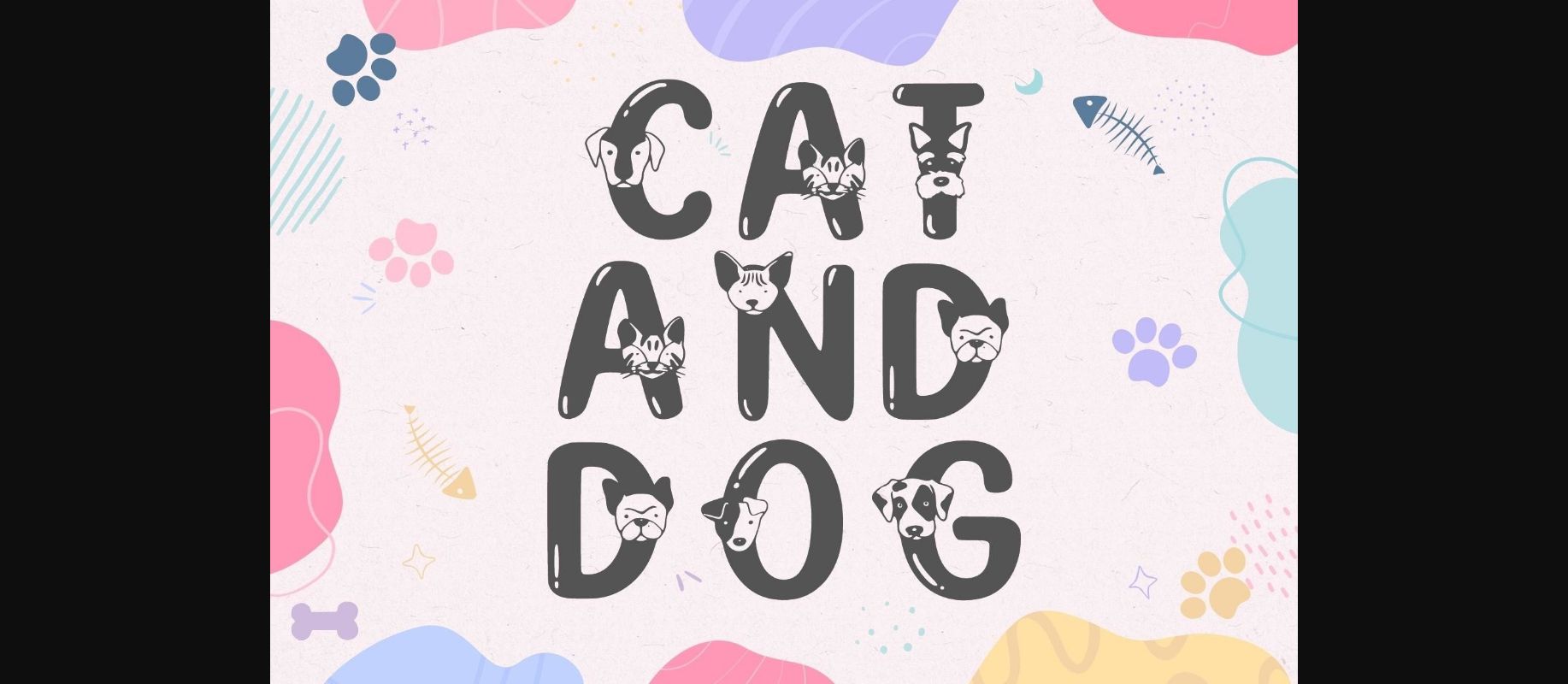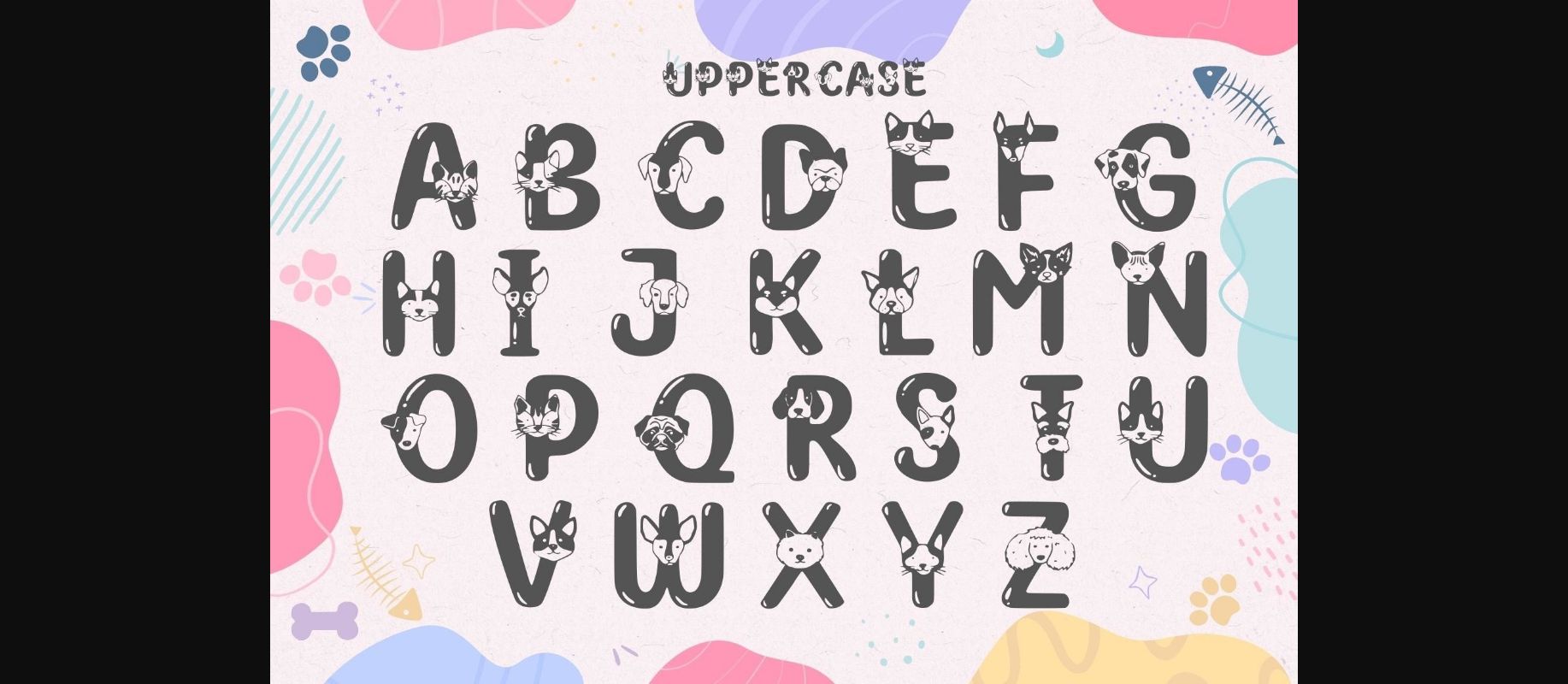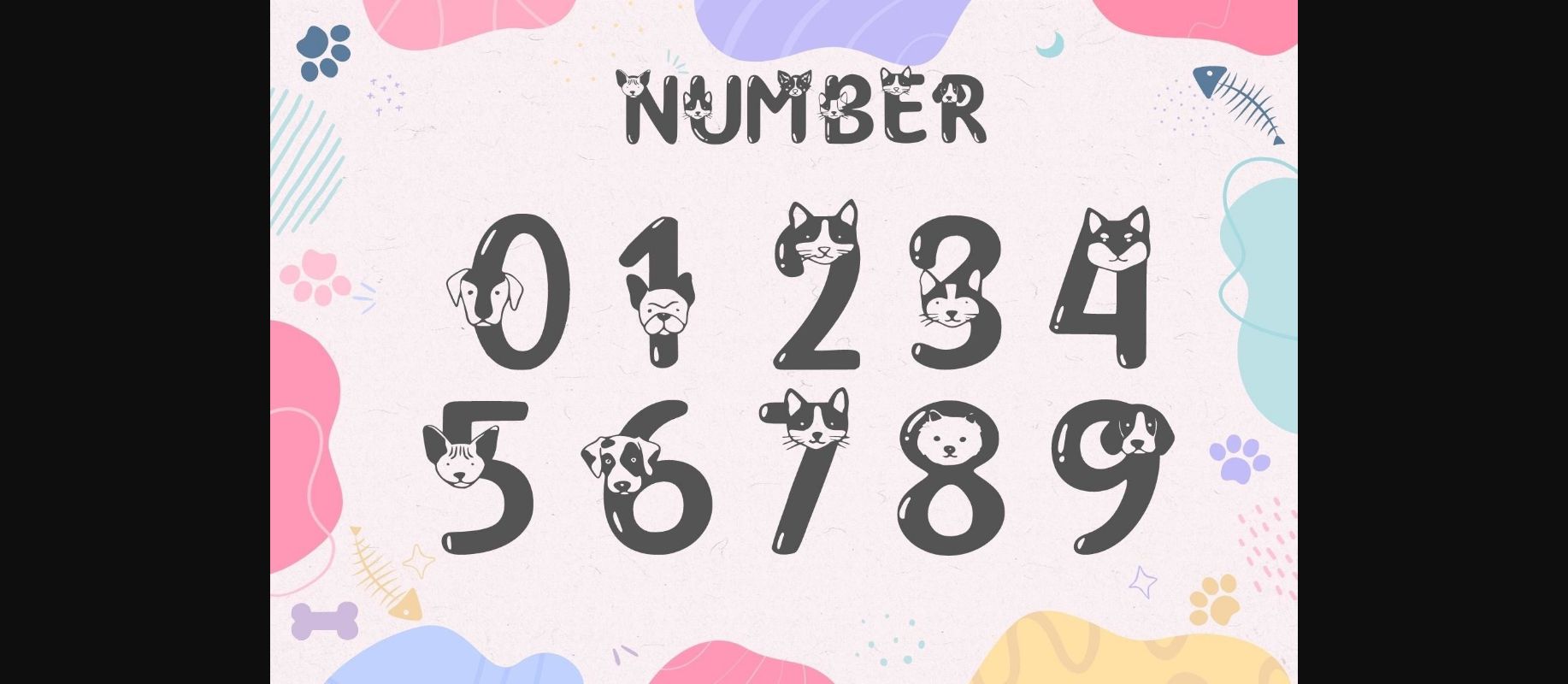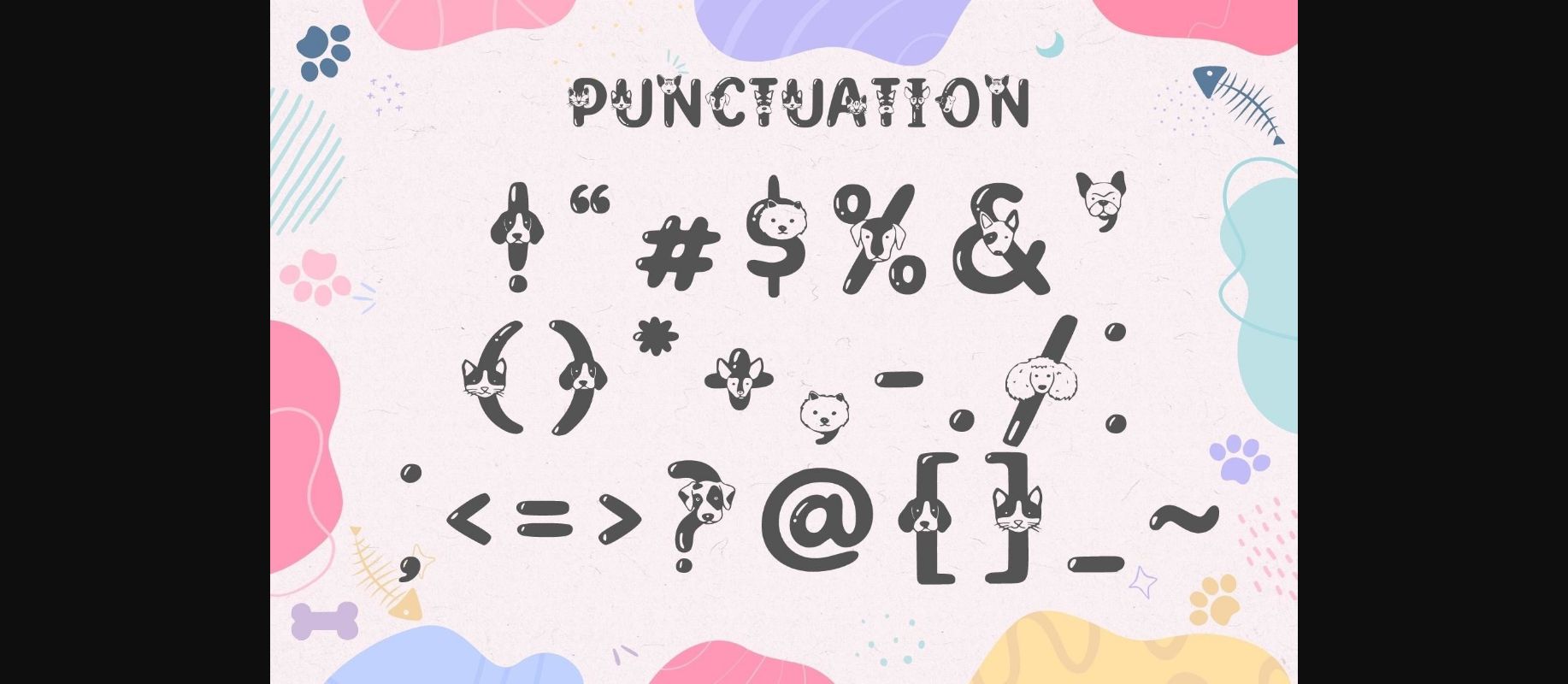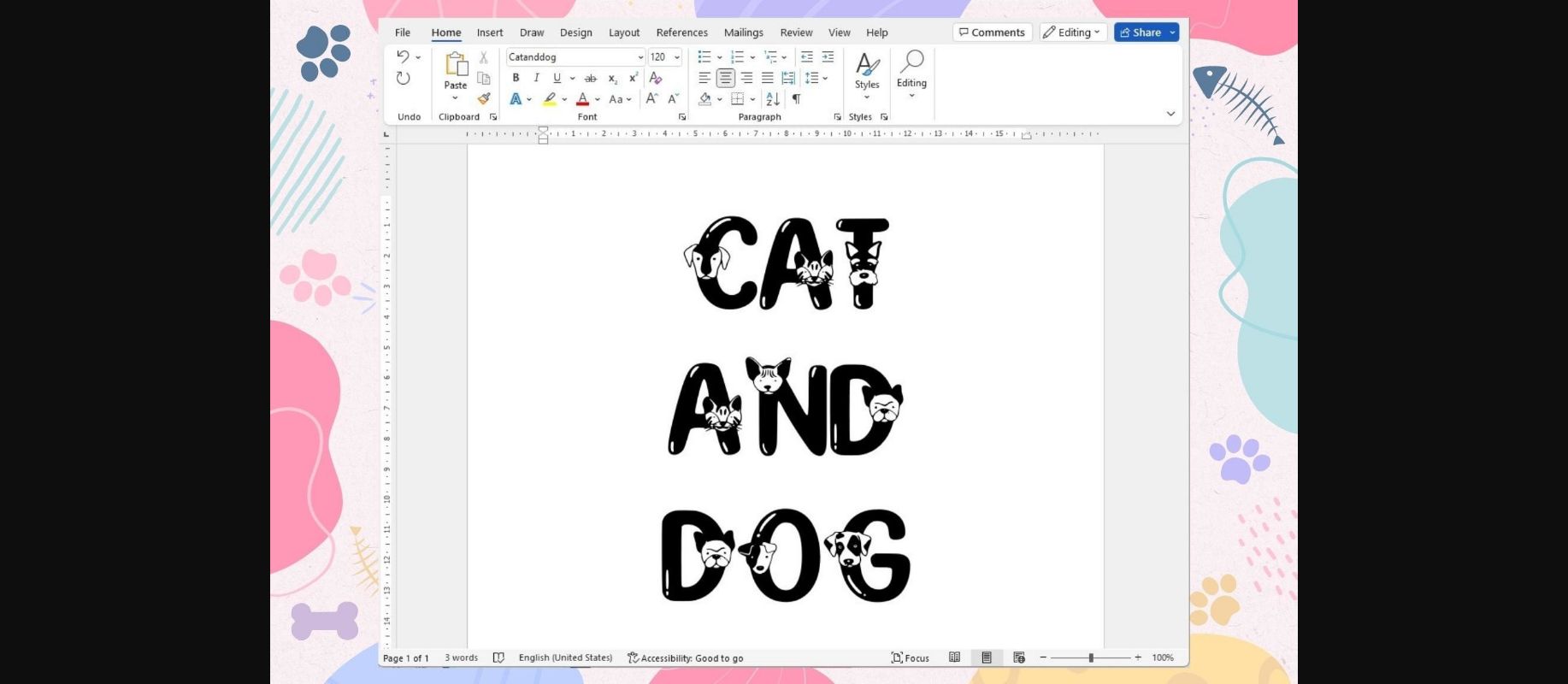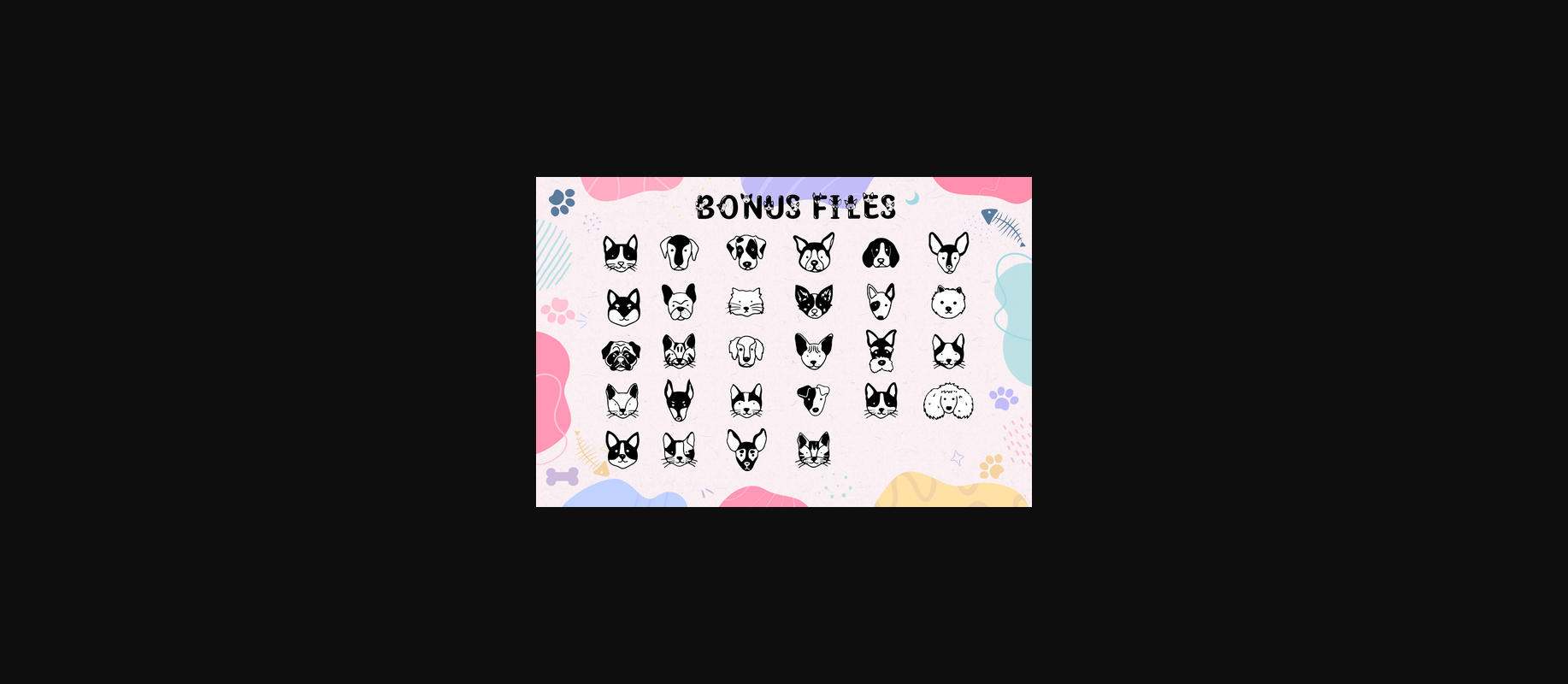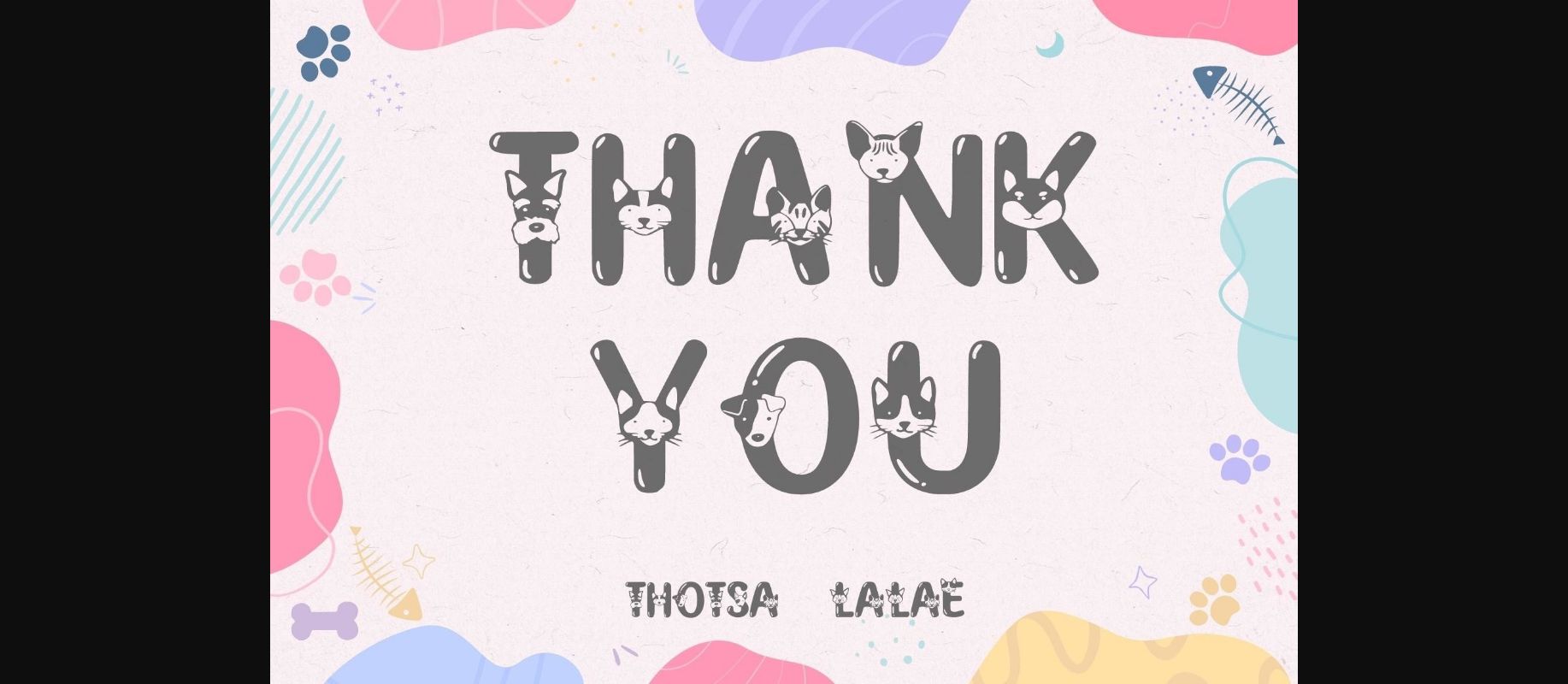
HomeDecorative FontsCat and Dog Font Decorative Fonts Cat and Dog Font FacebookXPinterestWhatsApp 1 of 9 ... Cat and Dog Font Poster 2... Cat and Dog Font Poster 3... Cat and Dog Font Poster 4... Cat and Dog Font Poster 5... Cat and Dog Font Poster 6... Cat and Dog Font Poster 7... Cat and Dog Font Poster 8... Cat and Dog Font Poster 9... About Cat and Dog Font Cat and Dog is a cute and playful decorative font full of adorable pet faces. No matter the topic, this font will be an incredible asset to your fonts’ library, as it has the potential to elevate any creation. DOWNLOAD NOW People also explored Micahel Cottina Font Indieground Font Catty Mouse Font Tritonal Font Filogofil Font Blanton Script Font Anais Jenesis Font Valentine Font 445 0 TagsCat and Dog Font Previous articleSnow Christmas FontNext articleDracula Boy Font LEAVE A REPLY Cancel reply Comment: Please enter your comment! Name:* Please enter your name here Email:* You have entered an incorrect email address! Please enter your email address here Website: Save my name, email, and website in this browser for the next time I comment. Personal Use Free Potato Pancakes Personal Use Free Read more about this font Qiwqiw Personal Use Free Read more about this font Multicolore Personal Use Free Read more about this font Castina Personal Use Free Read more about this font BLOG Free Fonts Risk: Why Free Fonts Can Be Dangerous for Designers Free Fonts Risk: Why Free Fonts Can Be Dangerous for Designers Using free fonts is a common practice in web and graphic design. However, the... Exploring Font Trends Transform Your Website: Elevate Your Typography with 7 Best Web Font Generators Best Fonts for YouTube Videos: Make Your Thumbnails Stand Out